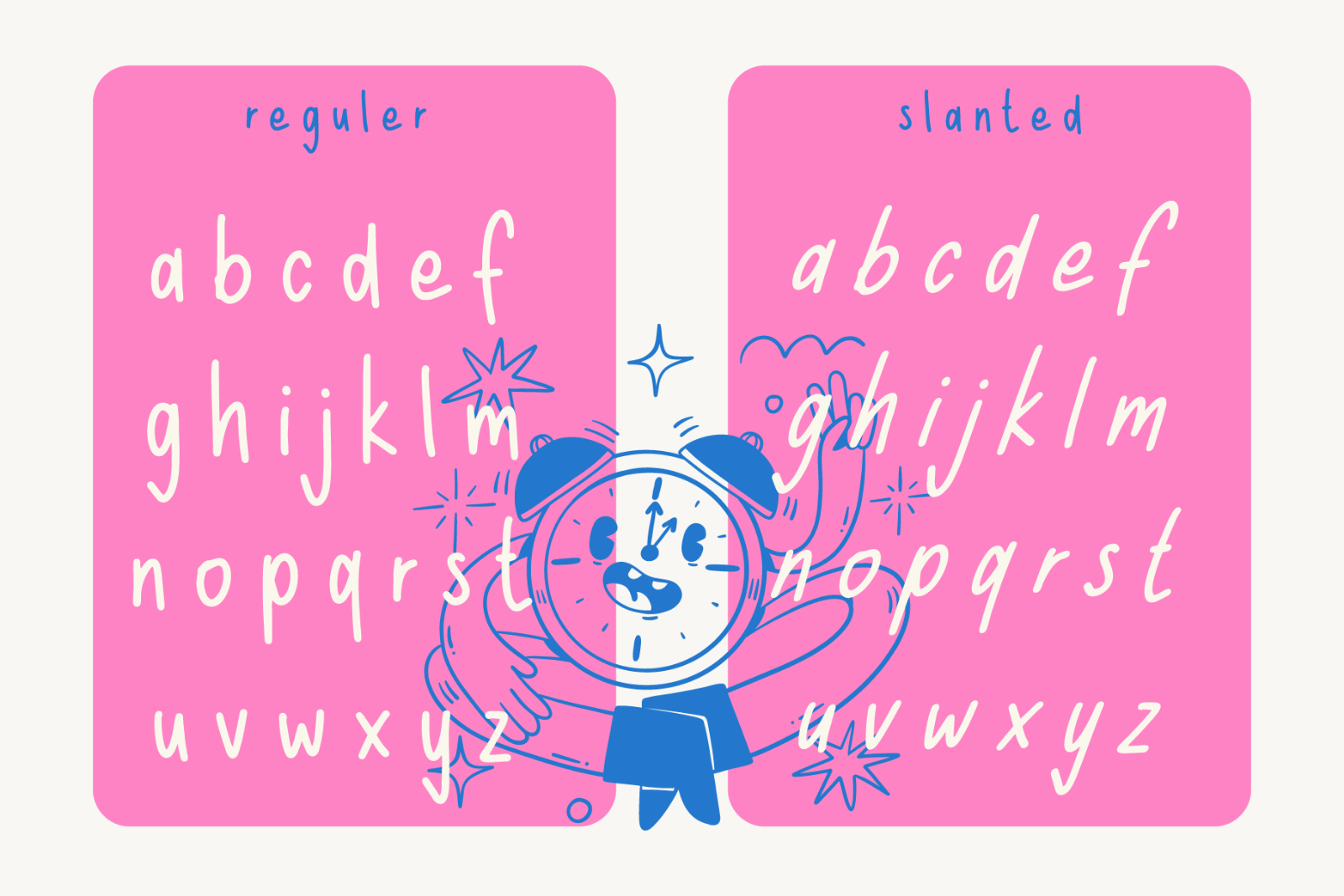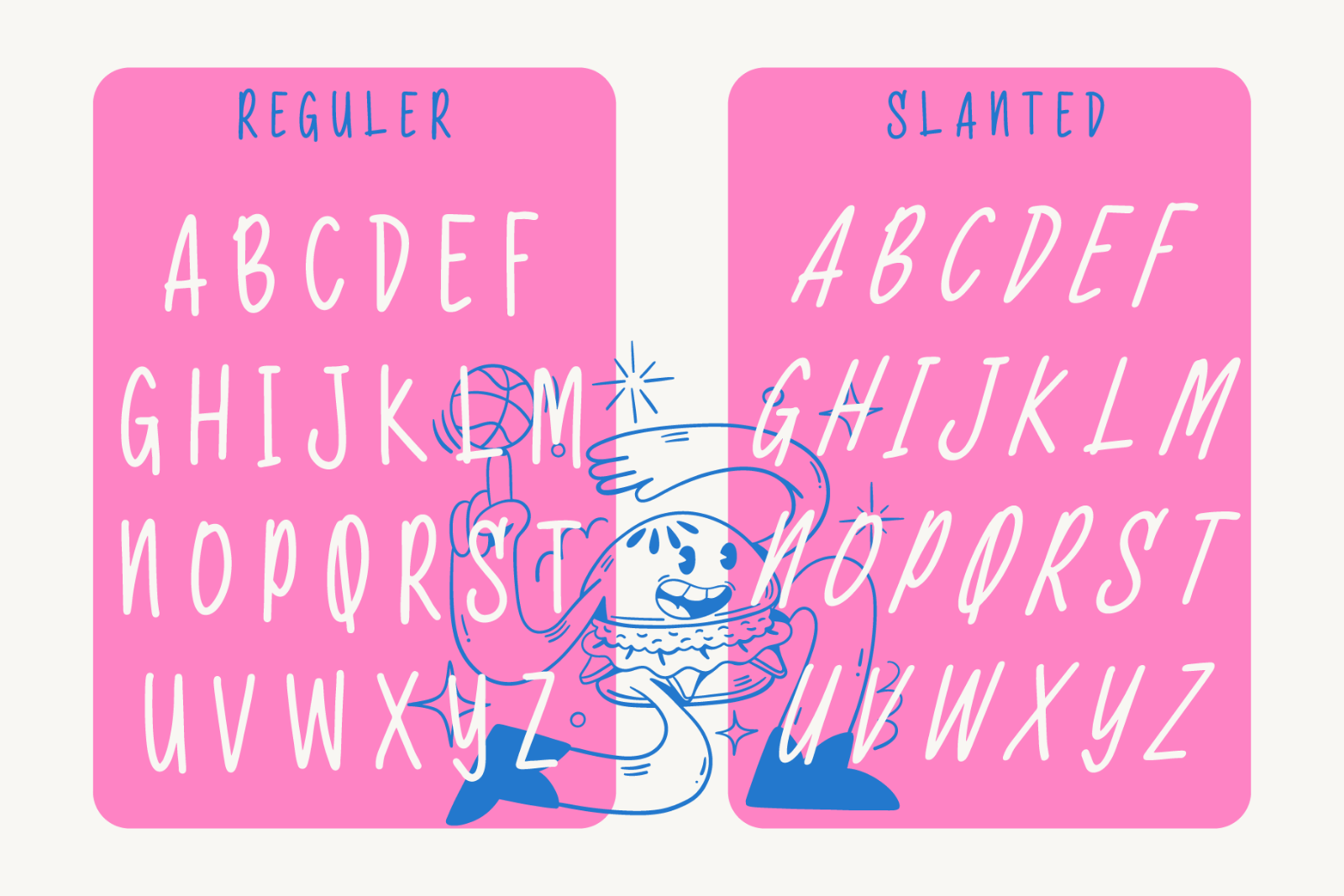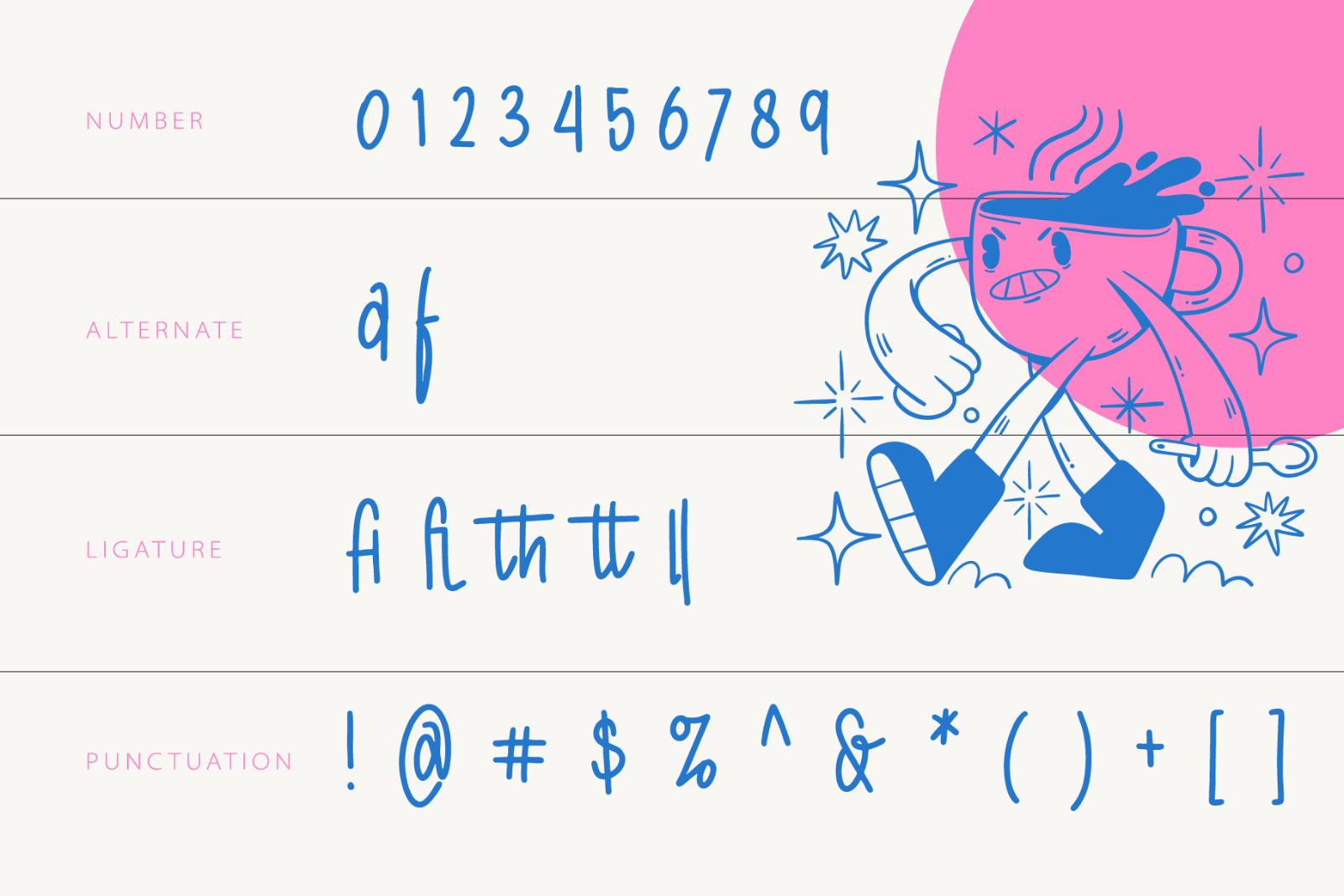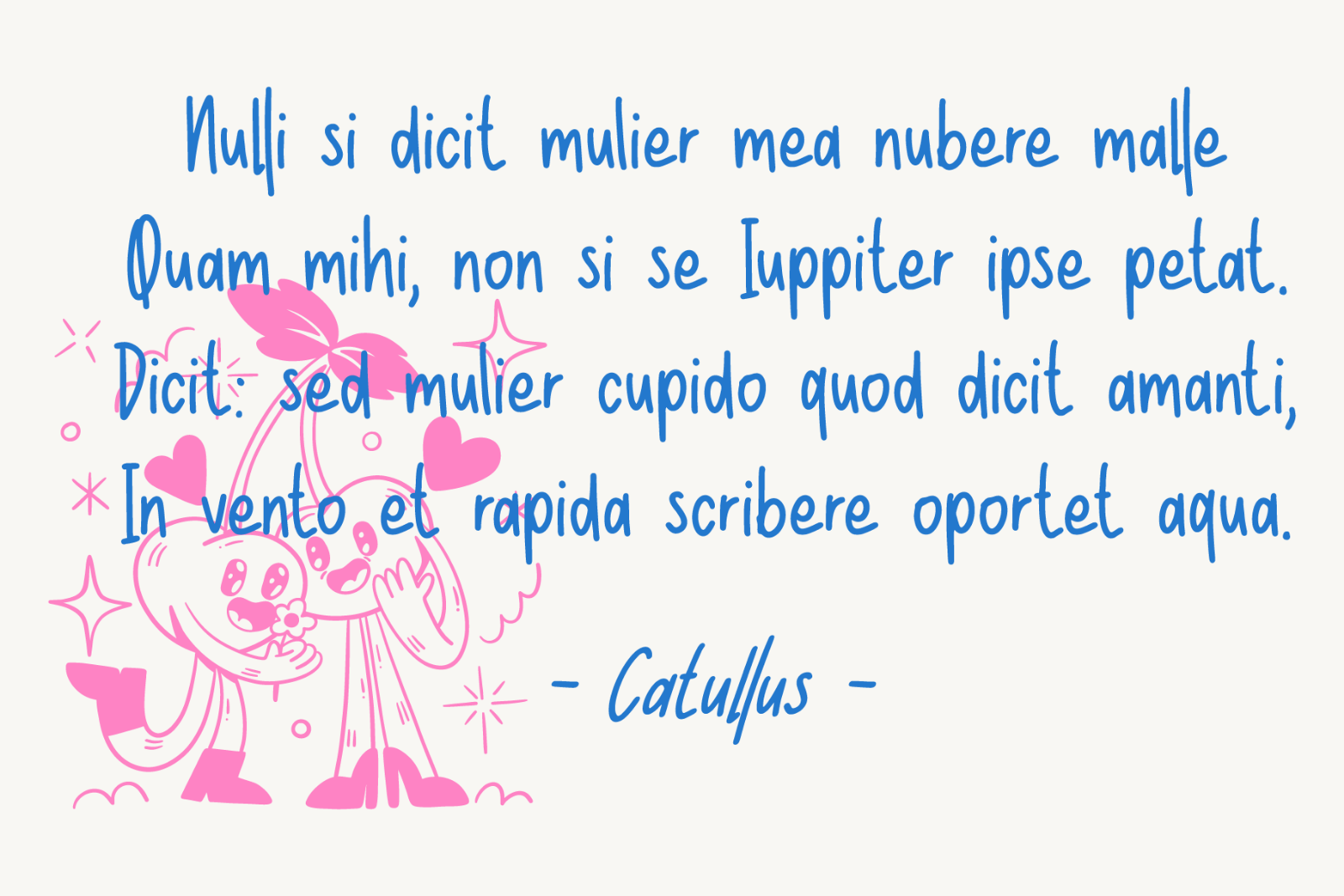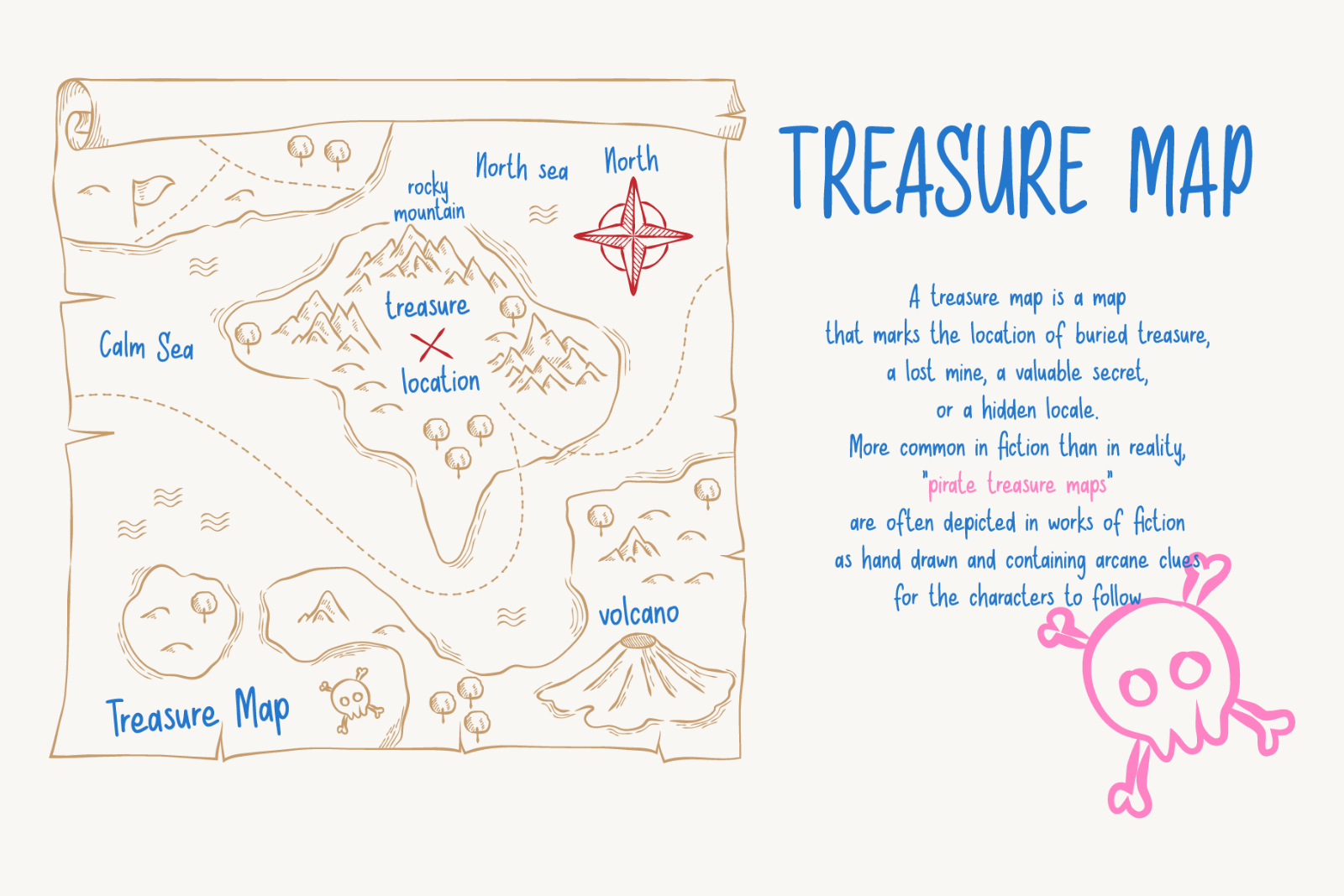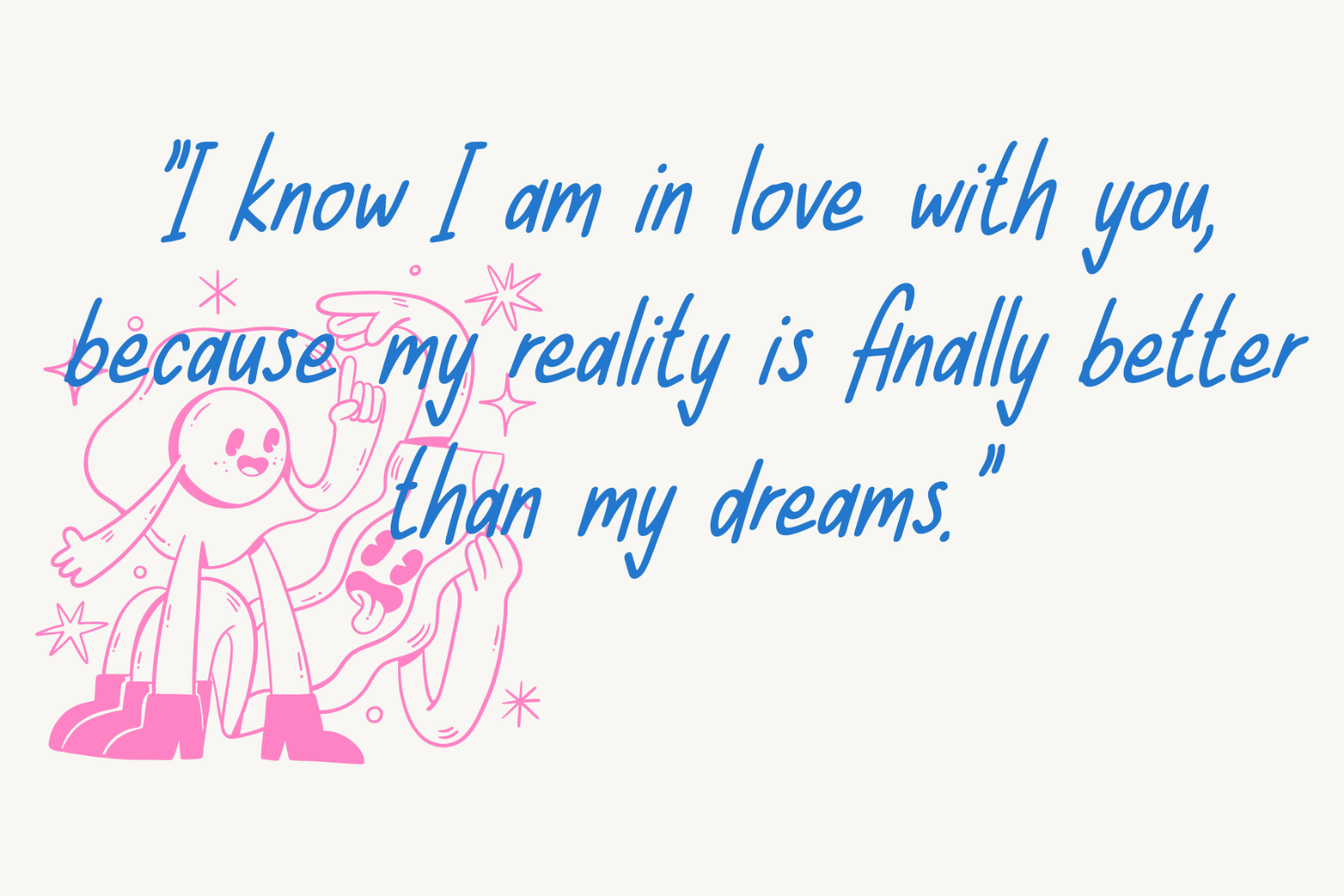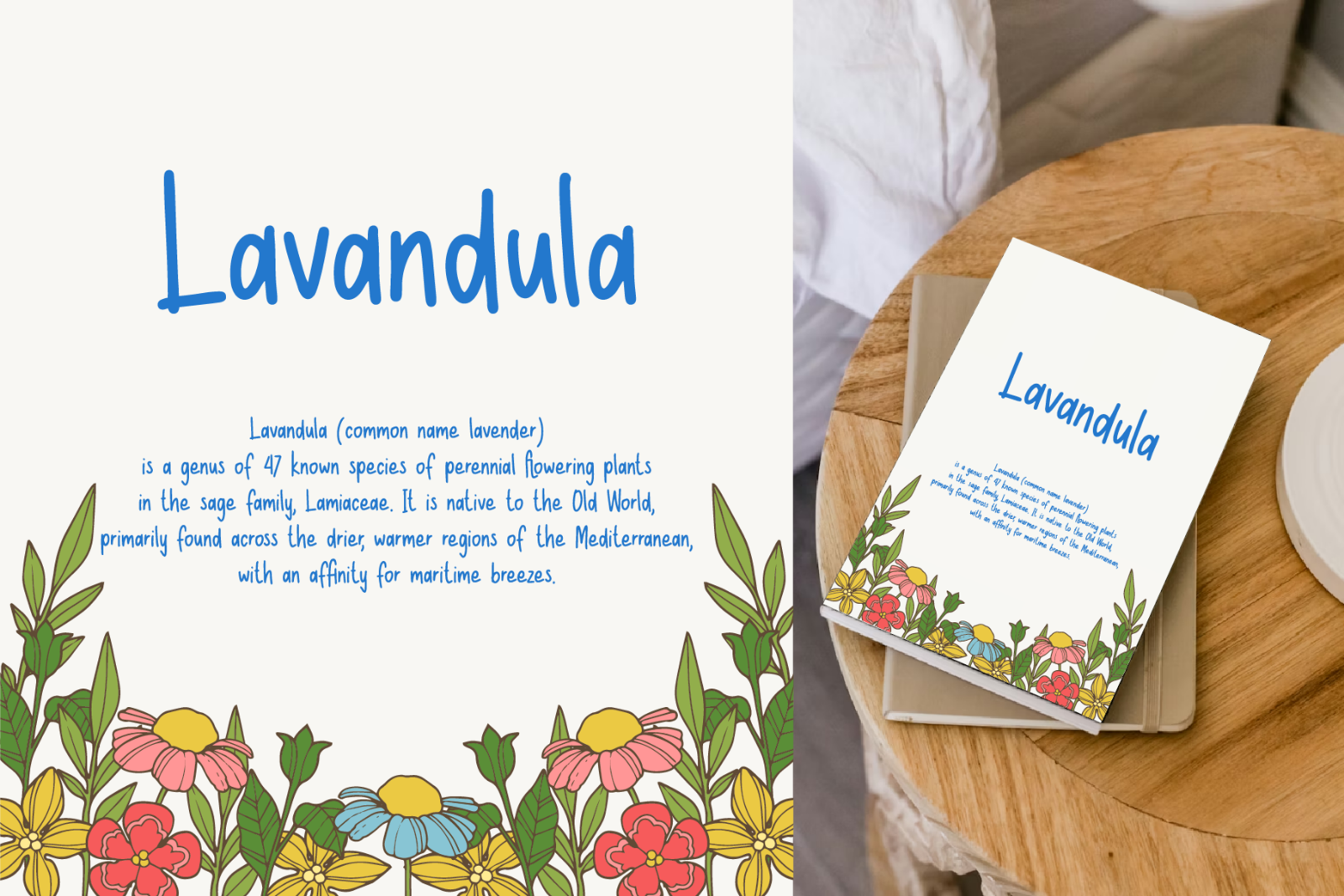
Cozy Hanline is a warm and expressive handwritten font designed to bring a natural personal touch into your creative projects. With its smooth curves, relaxed flow, and authentic handwritten feel, this font creates a soft and friendly atmosphere that feels both modern and timeless.
Perfect for branding, social media, packaging, quotes, invitations, logos, posters, and lifestyle designs, Cozy Hanline delivers a stylish handwritten look while staying clean and easy to read.
Whether you're creating elegant feminine branding, cozy aesthetic content, or casual signature-style typography, Cozy Hanline adds charm and personality effortlessly.
Features
• Natural handwritten style
• Smooth and flowing letterforms
• Uppercase & lowercase characters
• Numerals and punctuation
• Easy to use
Perfect For
• Branding & Logo Design
• Social Media Posts
• Wedding Invitations
• Product Packaging
• Fashion & Beauty Projects
• Quotes & Typography
• YouTube Thumbnails
• Craft & DIY Designs
Cozy Hanline combines comfort, elegance, and authenticity into one beautiful handwritten font that fits perfectly into modern creative trends.